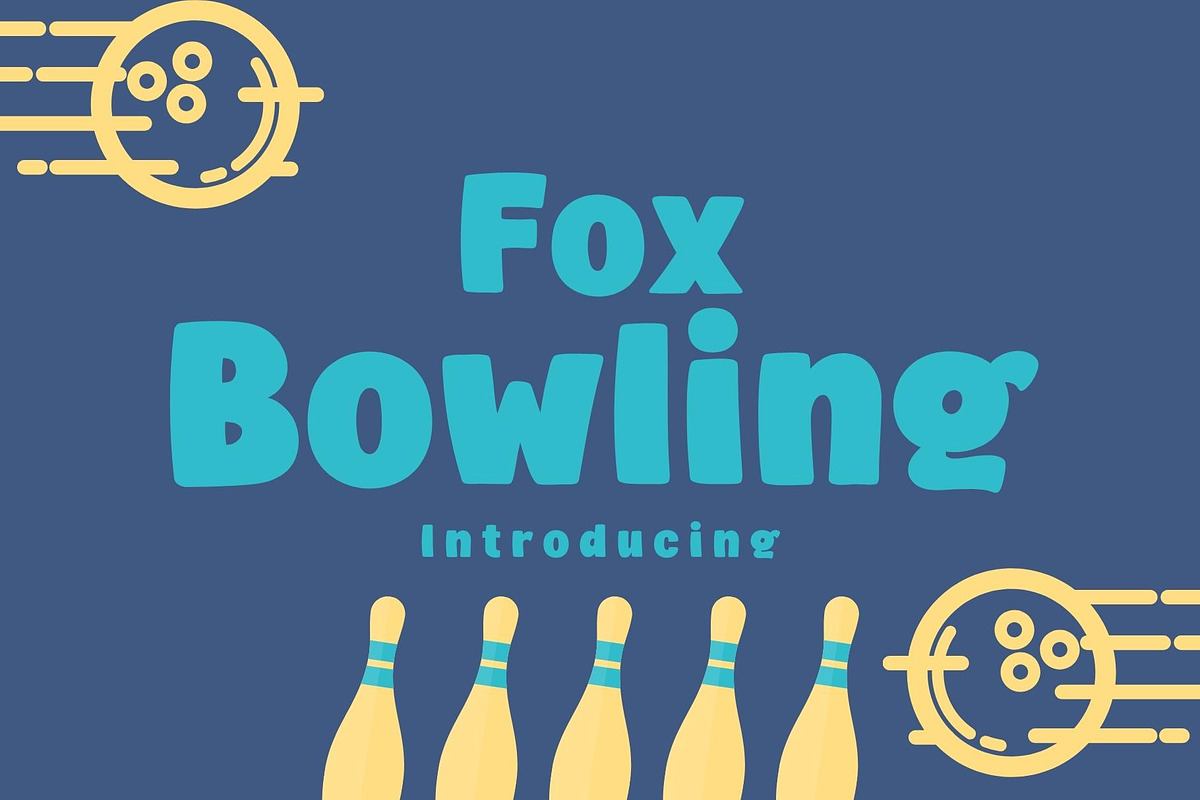
Fox Bowling Fonts Free Download is a retro-inspired, bold display typeface that channels the energetic vibe of vintage bowling alleys and mid-century Americana. With its playful curves, dynamic letterforms, and nostalgic flair, this font is perfect for posters, logos, sports-themed branding, diner menus, event flyers, and quirky merchandise.
Fox Bowling captures a sense of fun and motion, making it ideal for projects that need a lively and attention-grabbing type treatment. Whether you're designing for a retro event or creating graphics with a sporty twist, this font adds personality and punch.